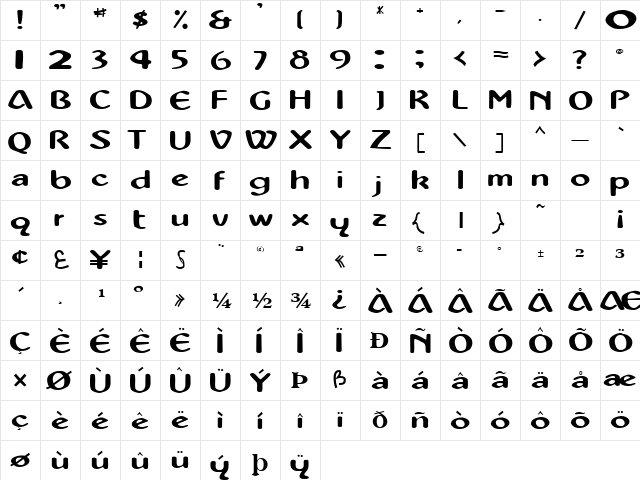
Mor Regular
Design Context for Mor Typeface
Mor is a composed and adaptable typeface that performs quietly and consistently across a wide range of design contexts.